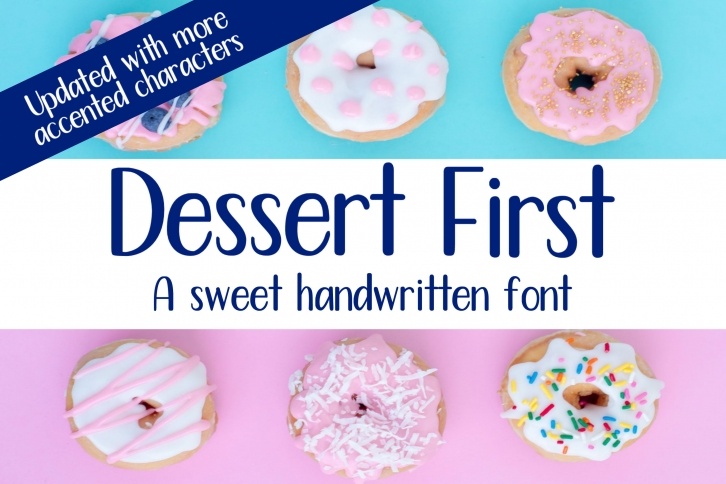
Dessert First is a beautiful font that was designed by Stacys Digital Designs. It's a great choice for designers and creatives who need such a font. It was released on October 7, 2018 and the file size is 16.35 MB. Dessert First may give a more youthful, expressive and casual look to your project. It is a very beautiful, refined, elegant, and high-quality font.